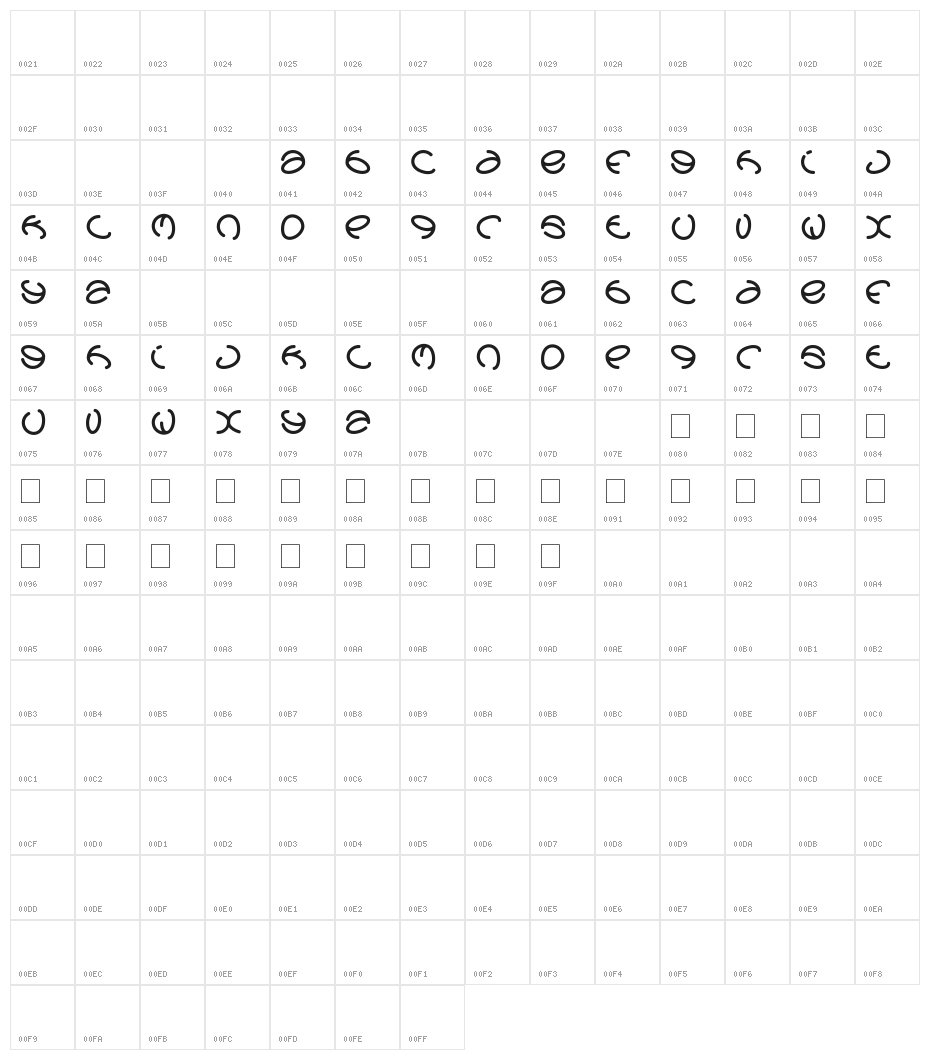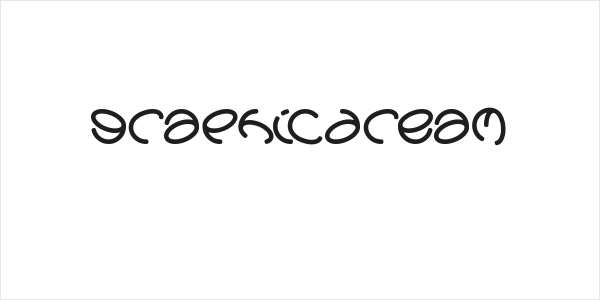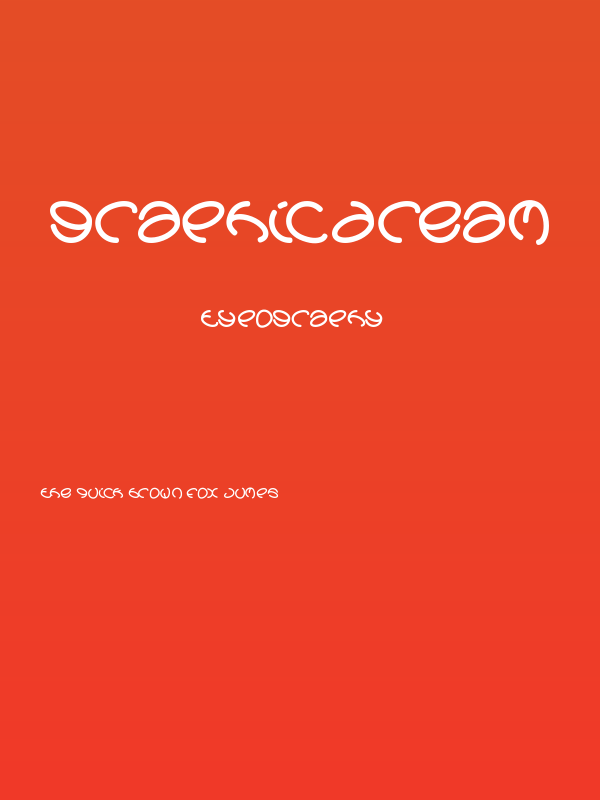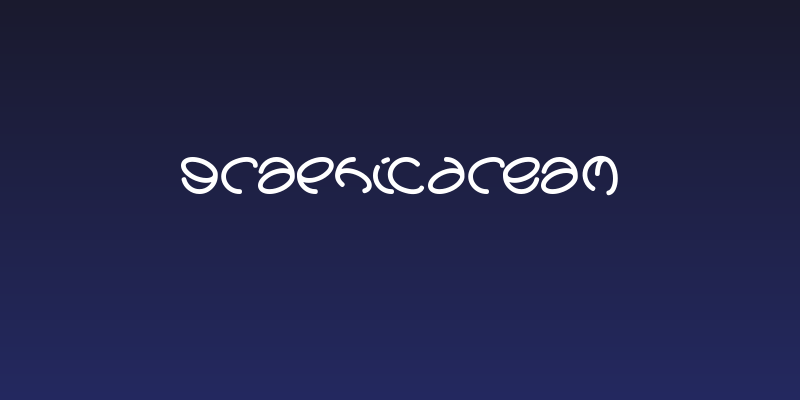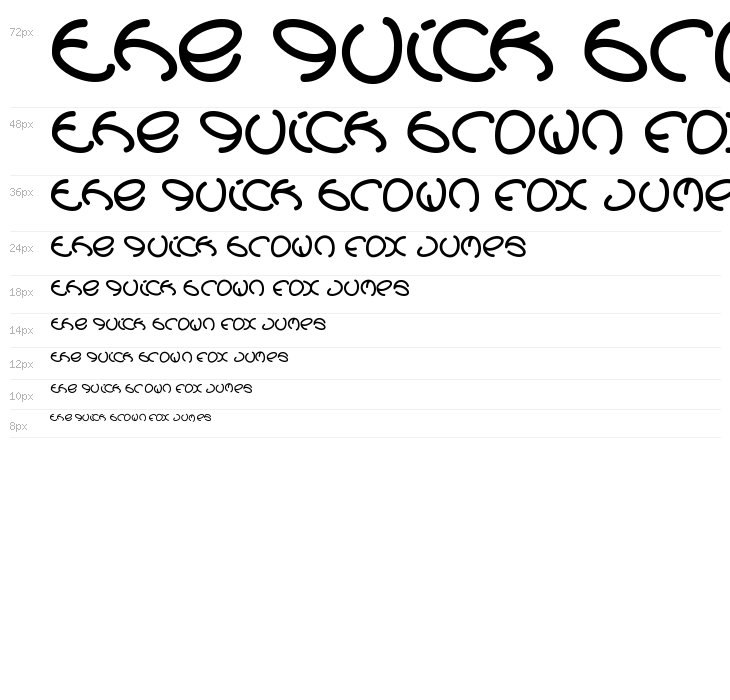
graphicdream Font
graphicdream Description
This font features a unique, decorative style with a playful and artistic flair. The characters are composed of smooth, flowing curves and loops, giving them a whimsical and almost abstract appearance. The design is consistent across both uppercase and lowercase letters, maintaining a cohesive look. The strokes are bold and rounded, contributing to a friendly and approachable aesthetic. This font does not adhere to traditional letterforms, making it stand out as a creative and unconventional choice.
| Proposed Projects | Ideal for creative projects such as children's book covers, playful branding, artistic posters, and unique logo designs. |